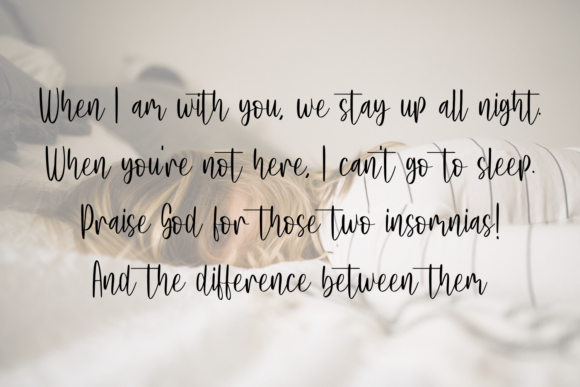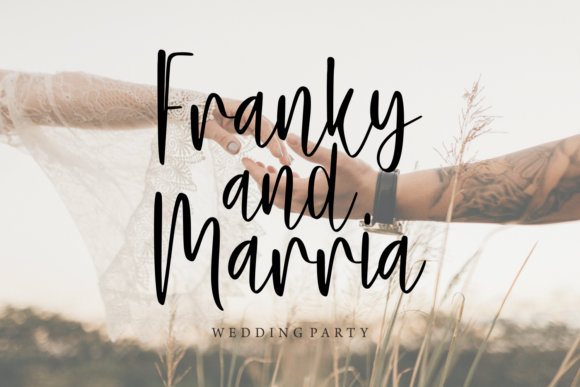
Bellataria Font
db-ku.com - Script & Handwritten -- A fancy and elegant handcrafted font that create to impress your audience and makes your branding shine.